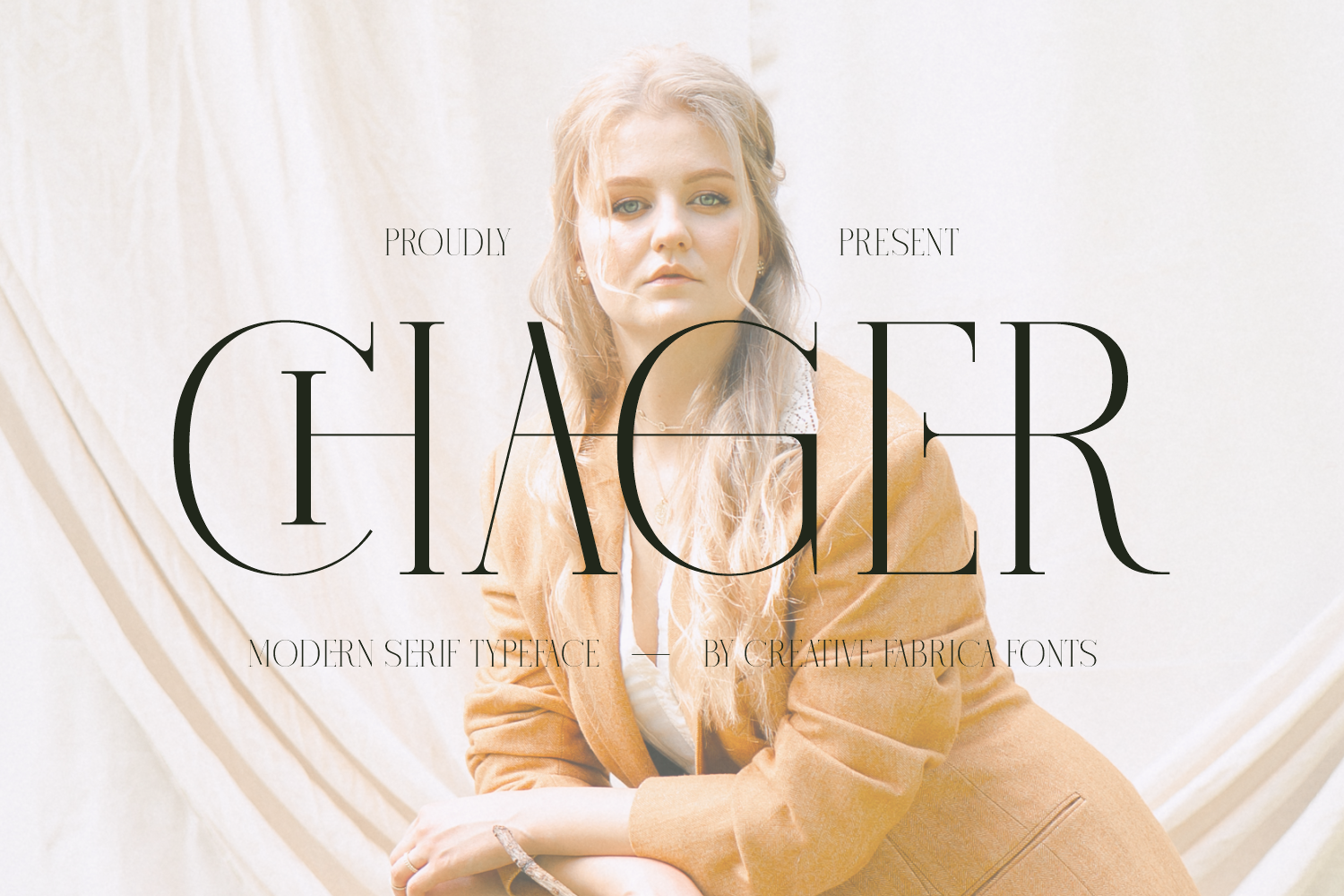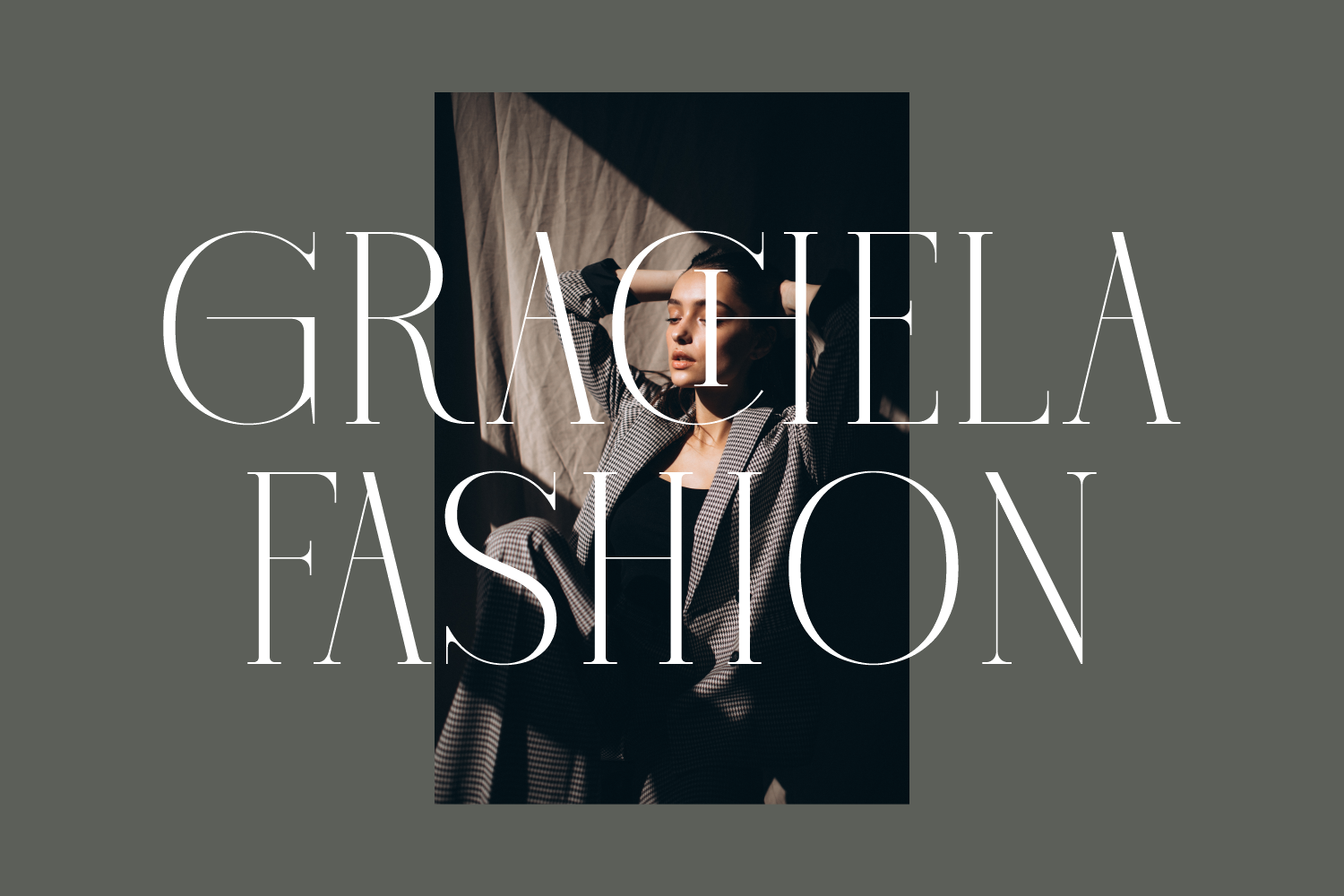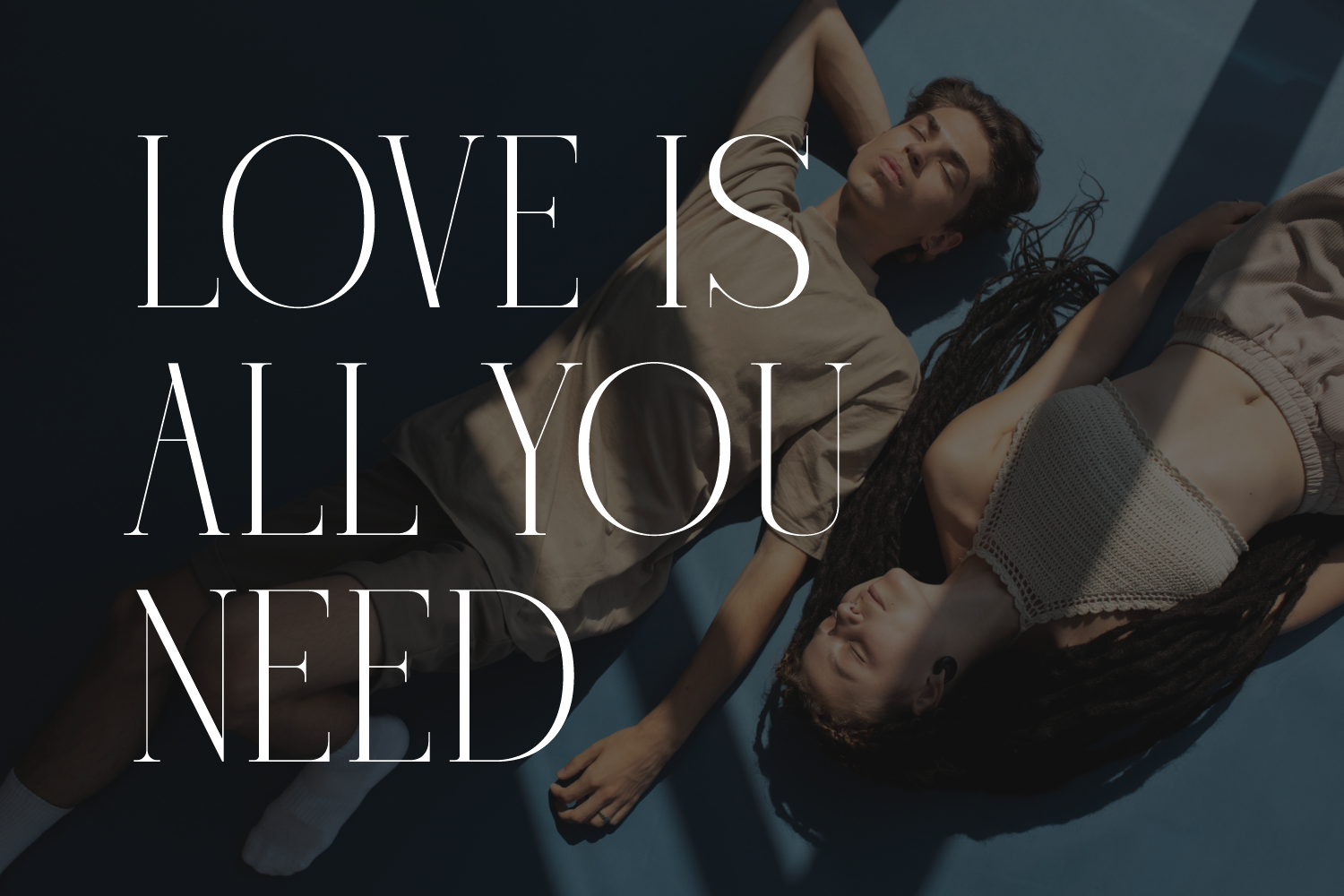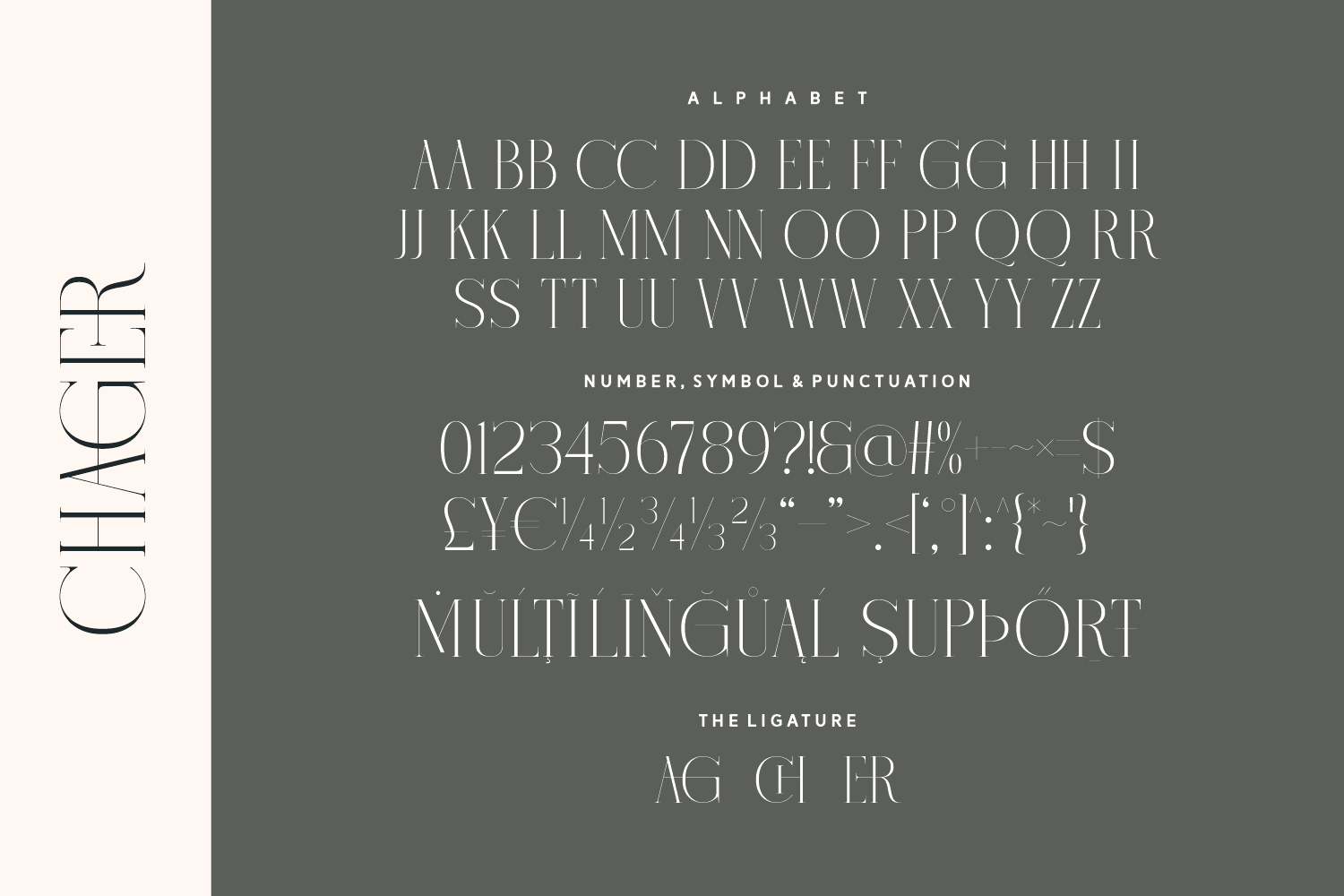
Chager is a tall, ultra-slim serif font designed for high fashion and artistic expression. Its dramatic vertical proportions and sharp, clean lines give it a commanding presence on magazine covers, editorials, or branding materials.
Whether you're designing for runway collections or minimalist campaigns, Chager delivers a chic, confident edge with every letter.